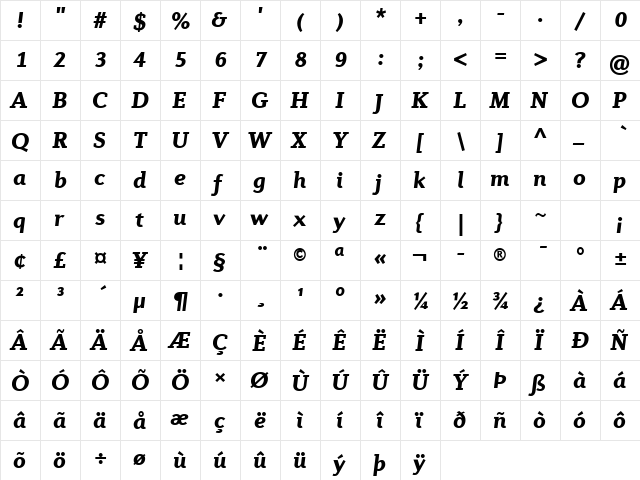
Diverda Serif Com Black Italic Font Preview
Diverda Serif Com Black Italic
Diverda Serif Com Black Italic Font Details
| Style | Black Italic |
| Foundry | Linotype GmbH |
| Designer | Daniel Lanz |
Design Context for Diverda Serif Com Typeface
Diverda Serif Com carries the refined structure of traditional serif typography, with bracketed terminals and considered proportions that communicate credibility and craft. Its italic angle brings a sense of urgency and motion to the letterforms.
Pro Tip: Set Diverda Serif Com with slightly loose tracking in headlines to let each letterform's detail read clearly at display sizes.